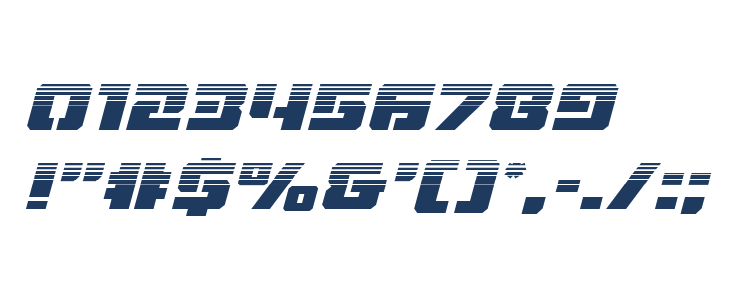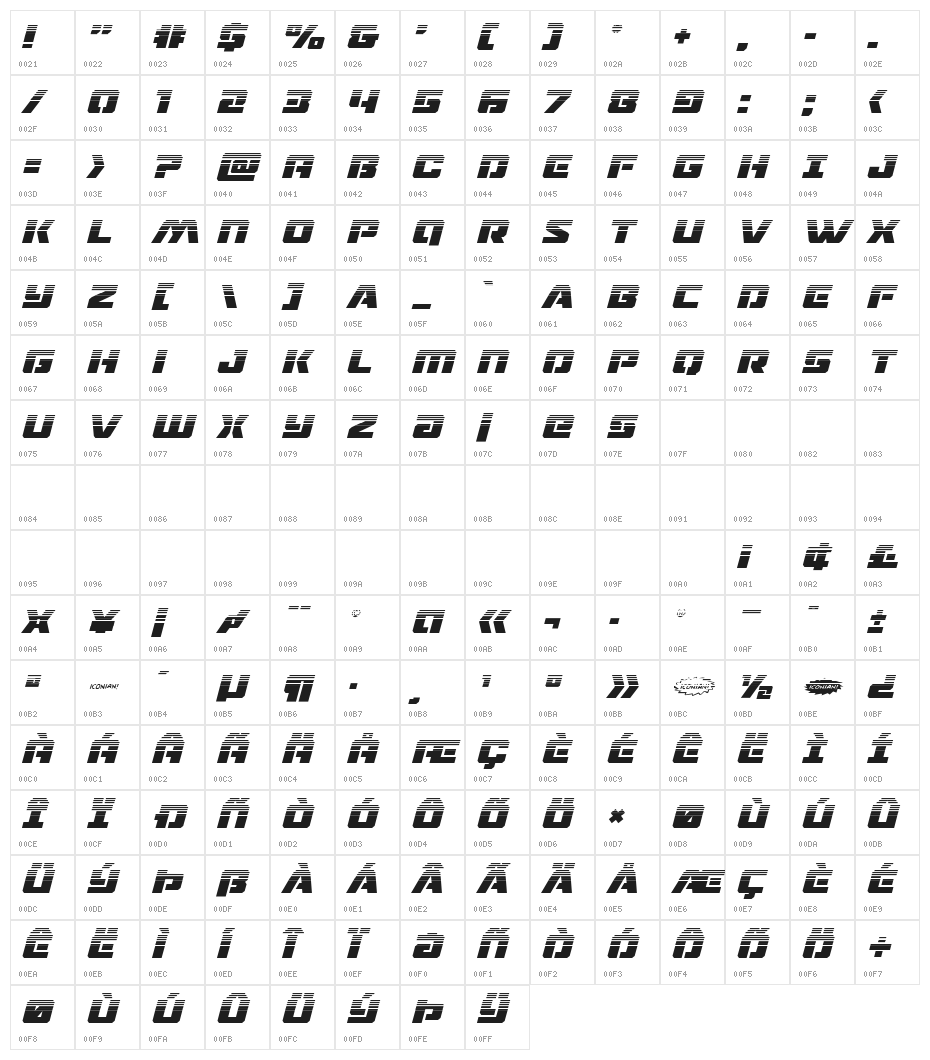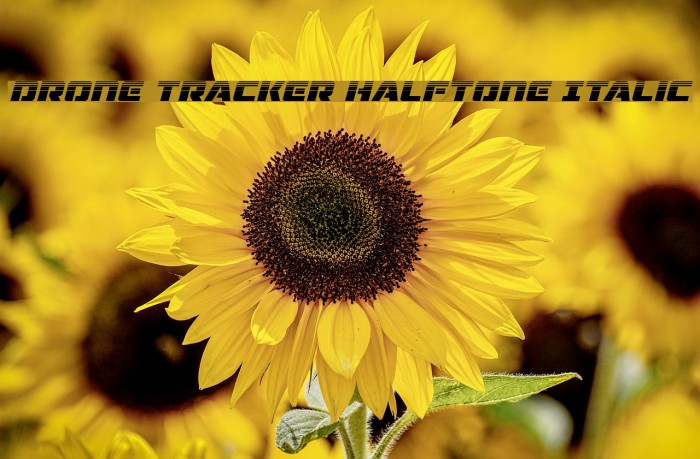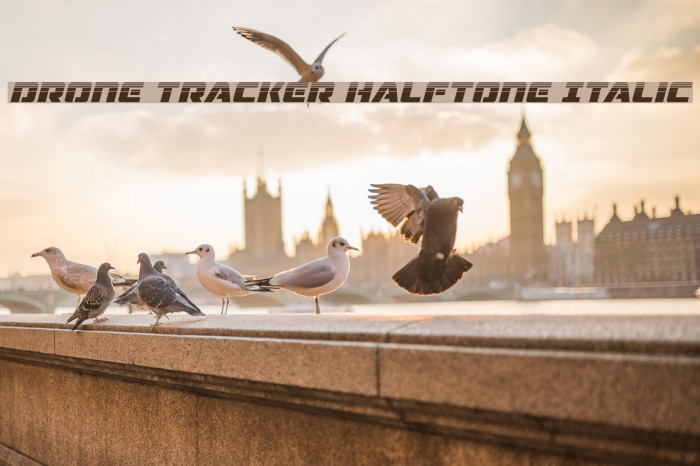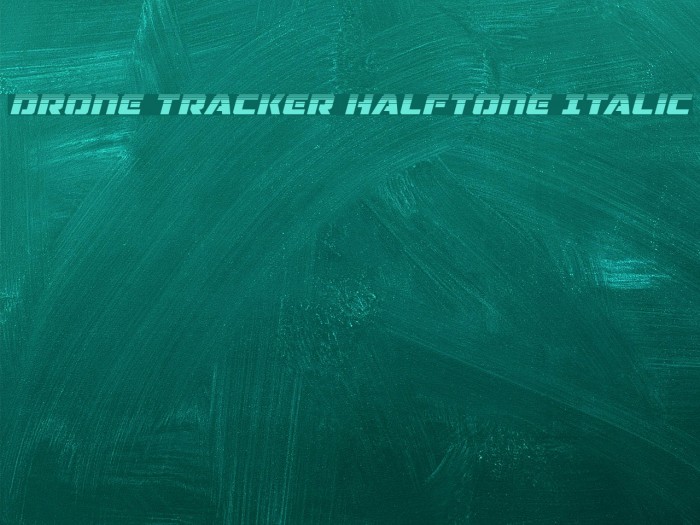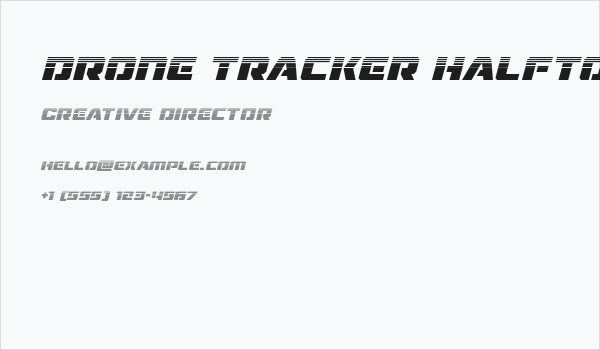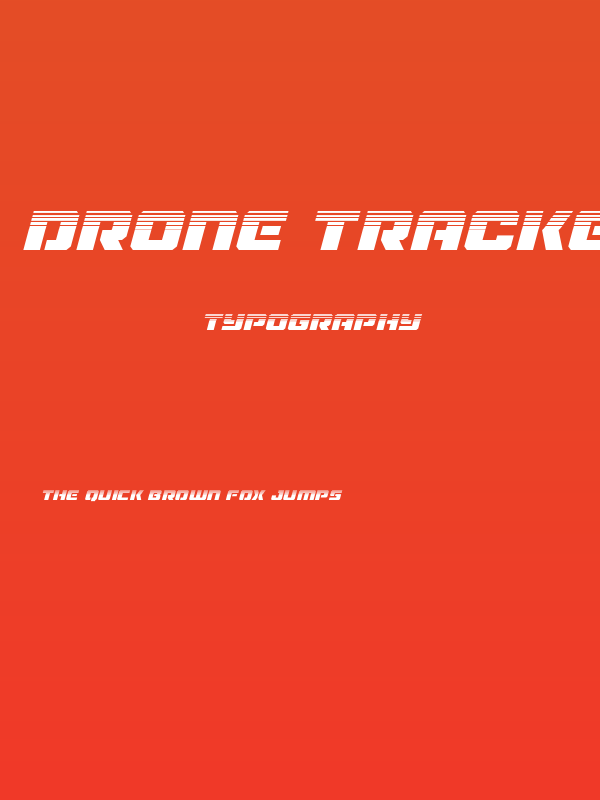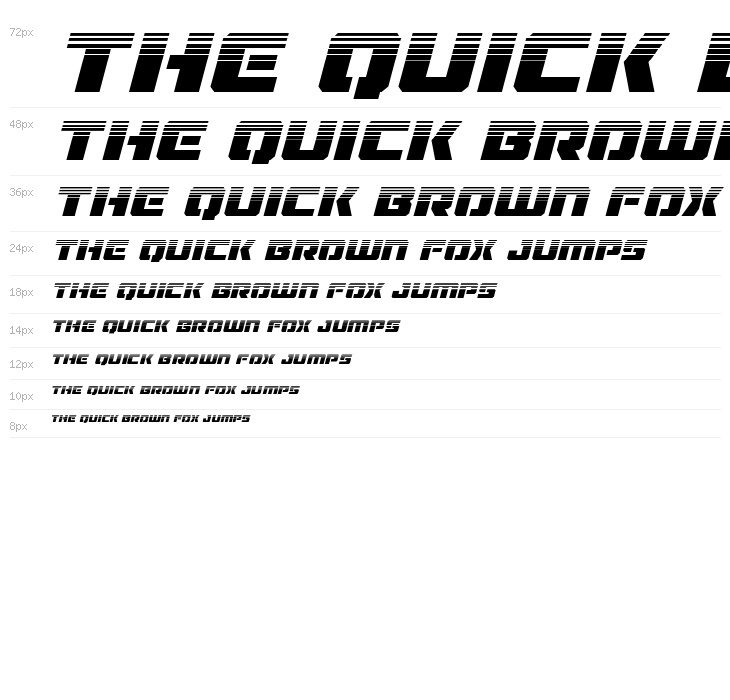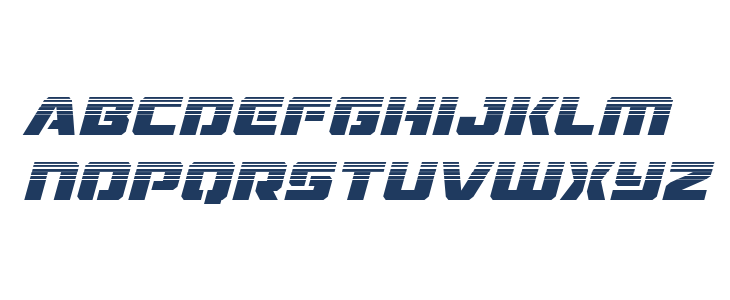
Drone Tracker Halftone Italic Font
Drone Tracker Halftone Italic Description
This font exhibits a bold and dynamic style with a futuristic and industrial feel. The characters are designed with a halftone effect, giving them a unique, layered appearance. The italic slant adds a sense of motion and speed, making it ideal for projects that require a modern and energetic look. The uppercase and lowercase letters maintain a consistent width, while the numbers and special characters follow the same design principles, ensuring uniformity across all elements. The font's distinctiveness is enhanced by the horizontal lines that cut through each character, creating a sense of depth and dimension.
| Proposed Projects | Ideal for technology branding, sports team logos, video game titles, and sci-fi themed designs. |